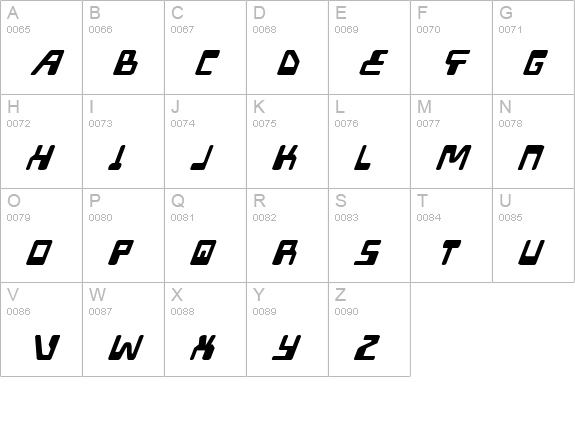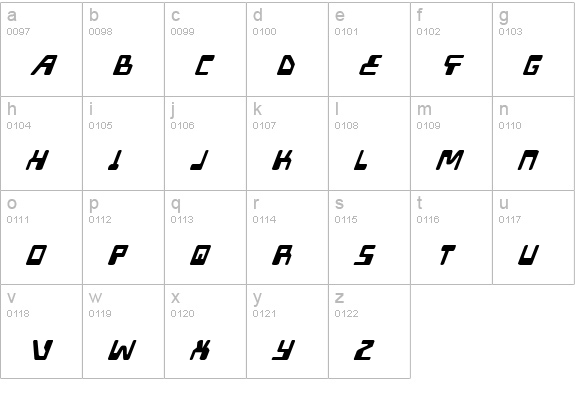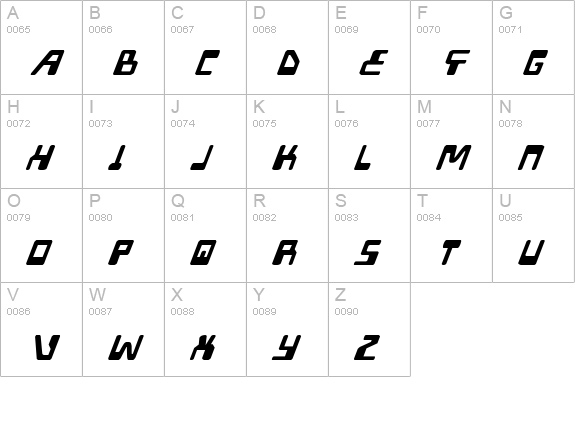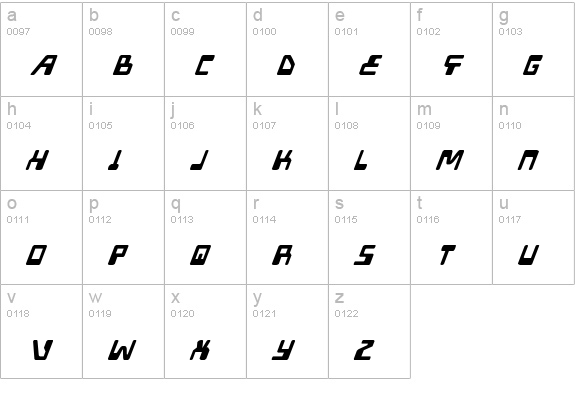
XPED Italic is a distinctive, italic variant in the XPED typeface family \xE2\x80\x94 well suited to design and typography projects.
The XPED Italic font is a stylish and modern typeface that exudes elegance and sophistication. With its sleek, slanted design and clean lines, this font is perfect for adding a touch of class to any project. Whether you're creating a logo, designing a website, or crafting a marketing campaign, XPED Italic will elevate your work to the next level. The best part? XPED Italic is available for free download at FontsMarket.com. That's right, you can add this beautiful font to your collection without spending a dime. So why wait? Download XPED Italic today and start creating stunning designs that will leave a lasting impression.